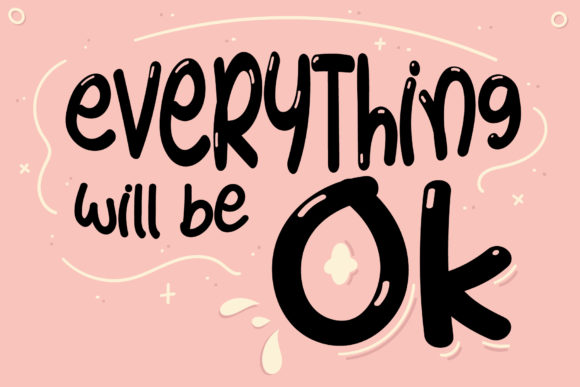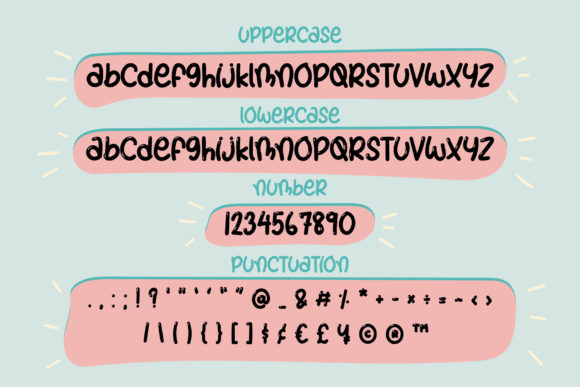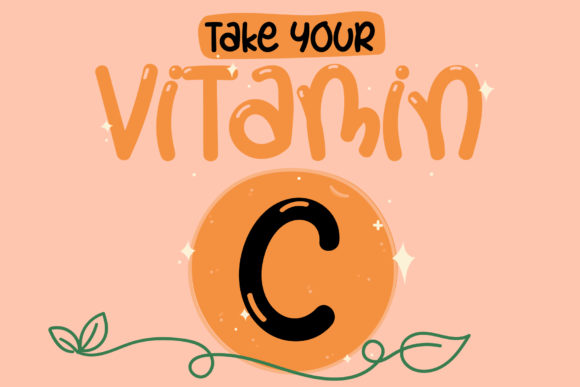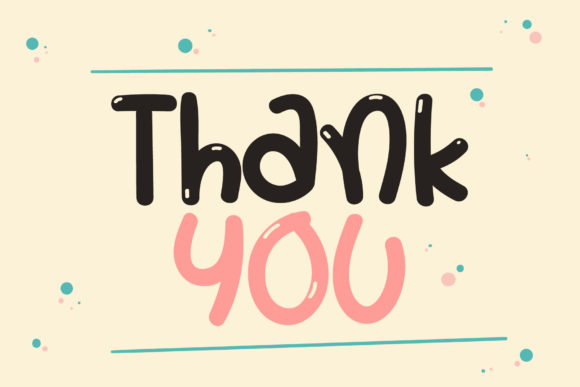
Introducing Charming Birds Font: The Perfect Addition to Your Children’s Design Projects
Are you a designer or crafter looking for a font that can add a touch of whimsy and fun to your children’s design projects? Look no further than Charming Birds Font! This adorable, cartoon-like display font is perfect for creating engaging and kid-friendly designs that are sure to delight.
What Makes Charming Birds Font So Special?
Charming Birds Font is a unique and charming font that is specifically designed to bring a sense of playfulness and friendliness to your designs. Its cute and approachable style makes it an ideal choice for children’s themed projects, such as:
- Children’s books and storybooks
- Kids’ party invitations and decorations
- Educational materials and worksheets
- Children’s clothing and accessories
- Playful posters and flyers
Key Features of Charming Birds Font
So, what makes Charming Birds Font so special? Here are some of its key features:
- Cute and cartoon-like design: Charming Birds Font features a playful and whimsical design that is sure to appeal to kids and adults alike.
- Display font: This font is specifically designed as a display font, making it perfect for headlines, titles, and other prominent text elements.
- Children’s themed: Charming Birds Font is designed with children in mind, making it an ideal choice for kids’ projects and designs.
- Bright and colorful: This font looks best when paired with bright and bold colors, making it perfect for designs that require a pop of color.
How to Use Charming Birds Font in Your Designs
Using Charming Birds Font in your designs is easy! Here are some tips to get you started:
- Pair with bright colors: Charming Birds Font looks best when paired with bright and bold colors. Try combining it with colors like pink, blue, yellow, and green to create a fun and playful design.
- Use for headlines and titles: This font is perfect for headlines and titles, making it a great choice for children’s books, posters, and other designs where you want to grab the reader’s attention.
- Experiment with different sizes: Charming Birds Font can be used at a variety of sizes, from small and delicate to large and bold. Experiment with different sizes to find the one that works best for your design.
Why Designers and Crafters Love Charming Birds Font
So, why do designers and crafters love Charming Birds Font? Here are just a few reasons:
- Unique and eye-catching: Charming Birds Font is a unique and eye-catching font that is sure to stand out in any design.
- Easy to use: This font is easy to use and can be incorporated into a variety of designs, from digital projects to print materials.
- Kid-friendly: Charming Birds Font is designed with kids in mind, making it a great choice for designers and crafters who create children’s products.